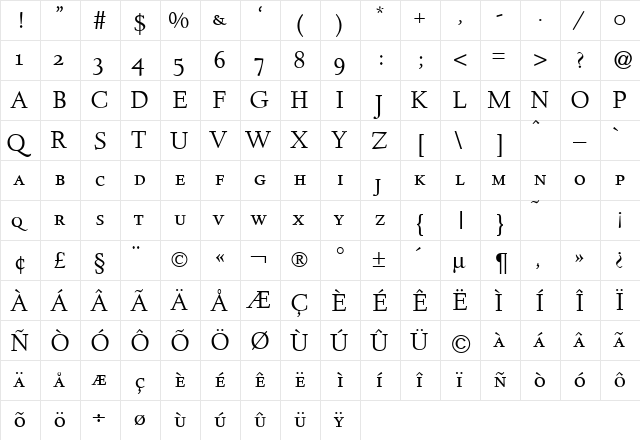
DeeperCapsDB Normal Font Preview
DeeperCapsDB Normal
DeeperCapsDB Normal Font Details
Design Context for DeeperCapsDB Typeface
DeeperCapsDB offers clean, dependable letterforms without strong stylistic allegiance, making it a practical choice for designers who need flexibility.